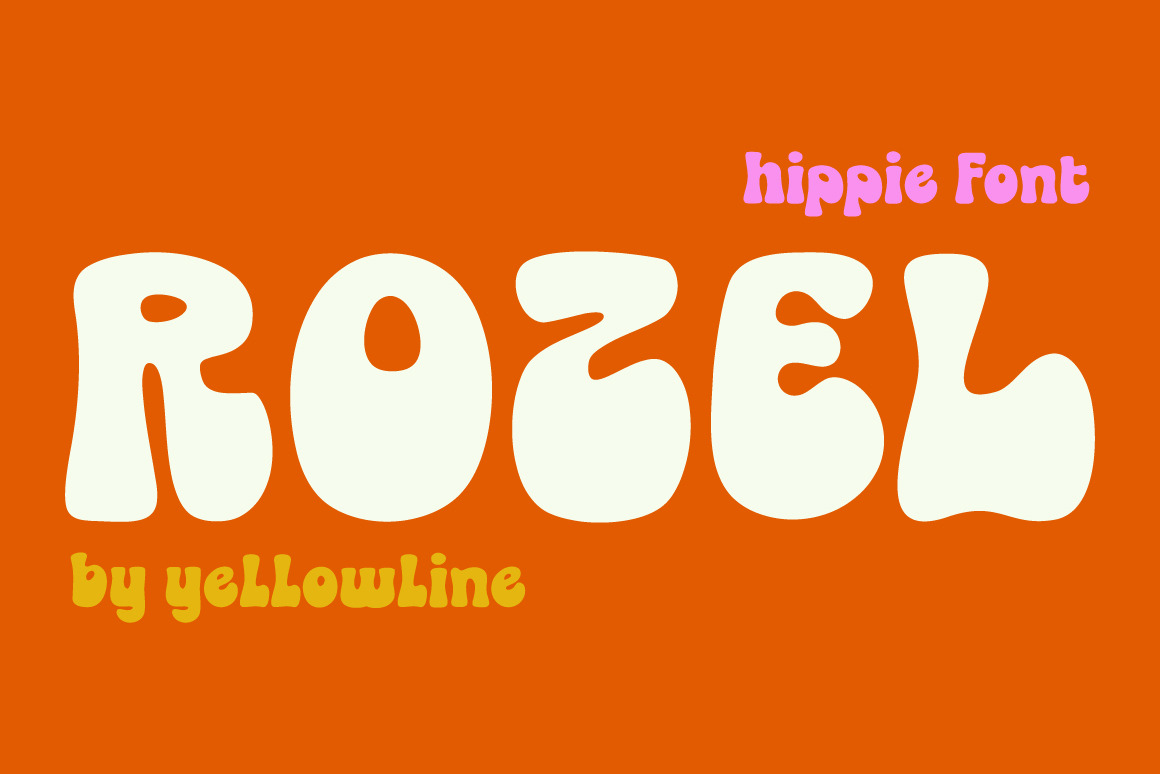
Rozel - Hippie Font
Rozel is a hippie wavy display font full of character. With its playful and bold, this font will instantly add a nostalgic vintage vibe to any of your creative ideas.
Carefully crafted to become a true favorite, this font has the power to make your designs stand out and leave a lasting impression.
Perfect for logotypes, stickers, packaging design, and any design projects.